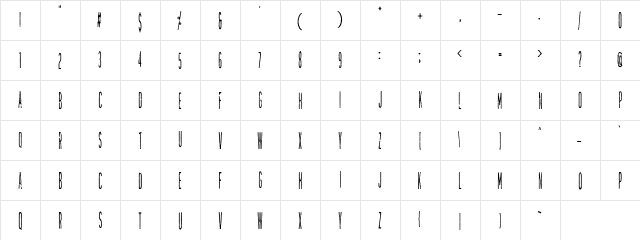
Tallierst Grustampa Normal
| Foundry | Bumbayo Font Fabrik |
Design Context for Tallierst Grustampa Typeface
Tallierst Grustampa has the rough pragmatism of spray-painted stencil signage, adding a raw, street-level authenticity to designs.
Ideal for industrial branding, streetwear, military-adjacent aesthetics, and urban signage projects.
Pro Tip: Pair Tallierst Grustampa with raw, utilitarian design elements — exposed concrete textures, flat colour, and minimal ornamentation suit it well.